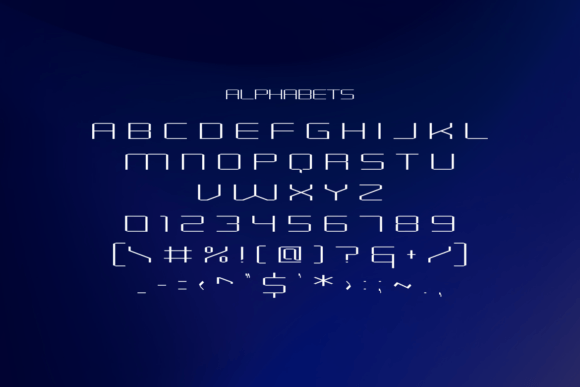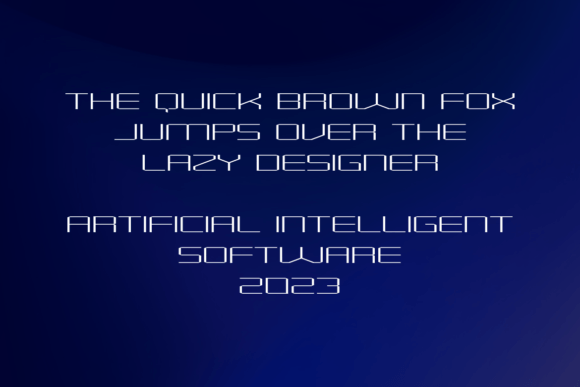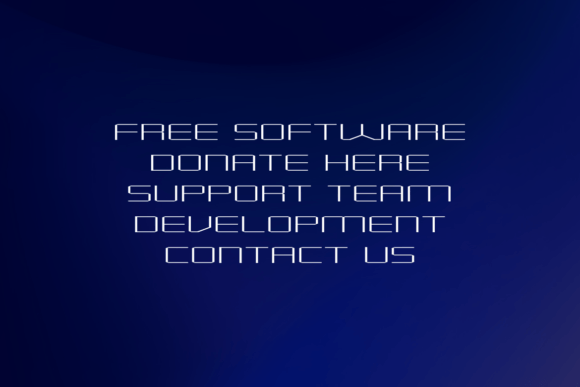
Introduction to Macovers Font
Macovers is a techno-lite font that is suitable for the needs of websites engaged in marketing technology products, such as the world of games, software development teams, technicians or mechanics, or the world of trading.
This font is specially designed to add efficiency to website descriptions .
Key Features of Macovers Font